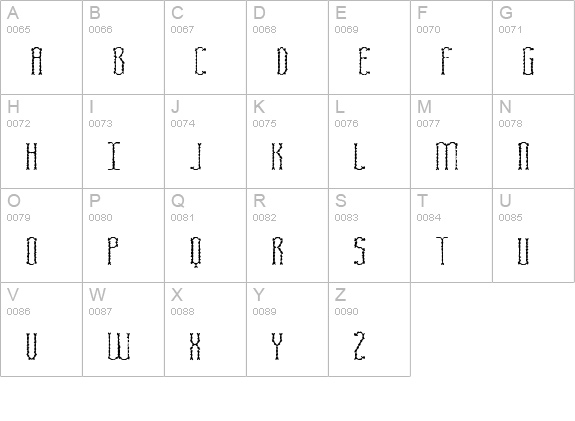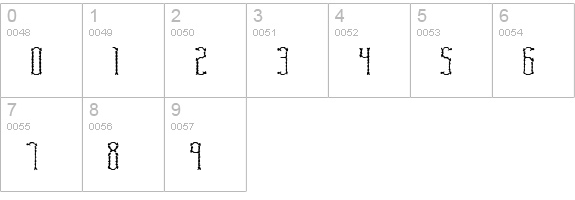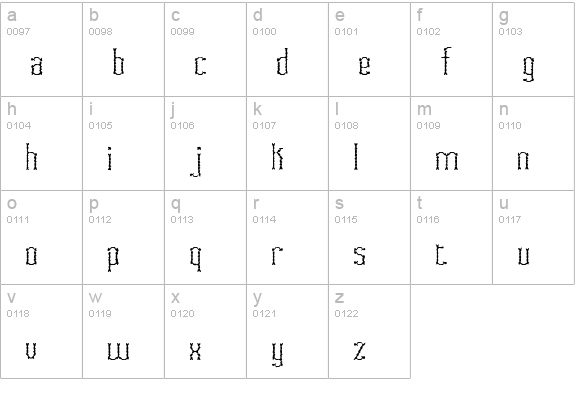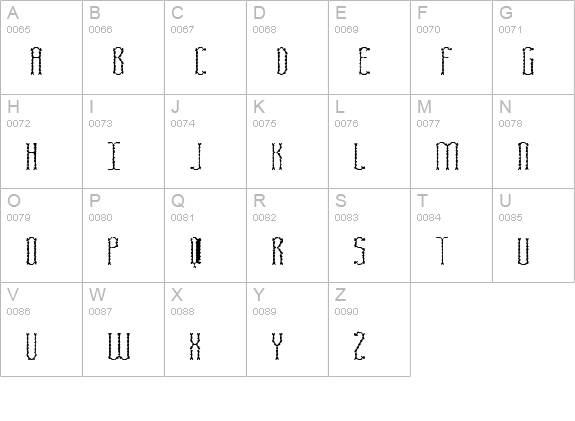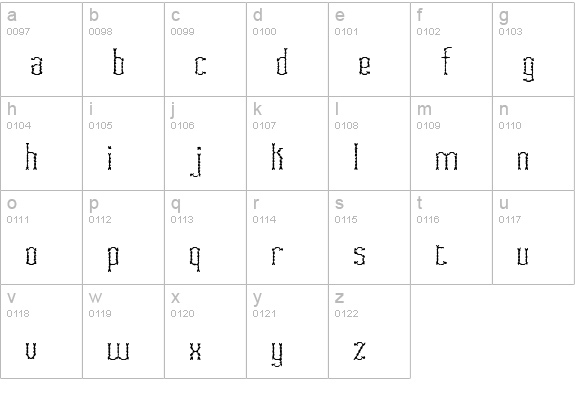
Fascii Scraggly BRK Font Details
Fascii Scraggly BRK font is a charming and quirky typeface that exudes a playful and hand-drawn aesthetic. The irregular and whimsical shapes of the letters give this font a unique and artistic appeal, perfect for adding a touch of creativity to your designs. The uneven lines and scraggly edges of the characters create a sense of movement and spontaneity, making Fascii Scraggly BRK font a great choice for projects that call for a fun and unconventional look. Best of all, Fascii Scraggly BRK font is completely free to download at FontsMarket.com. Whether you're working on a personal project, a professional design, or simply looking to add a bit of charm to your text, this font is a fantastic choice. With its free availability and versatile design, Fascii Scraggly BRK font is sure to become a go-to option for all your creative endeavors.